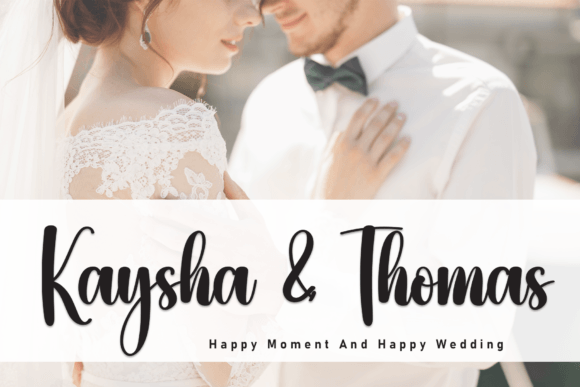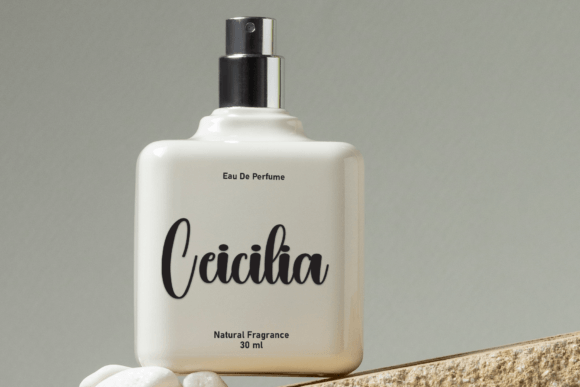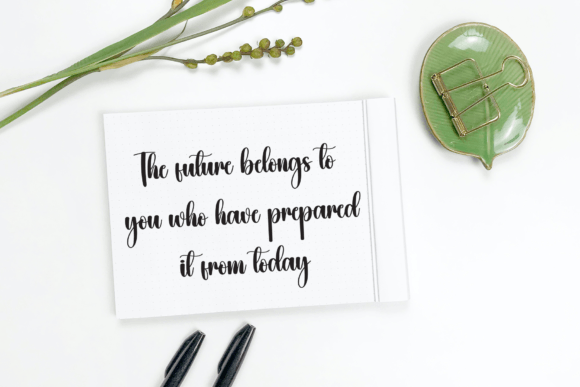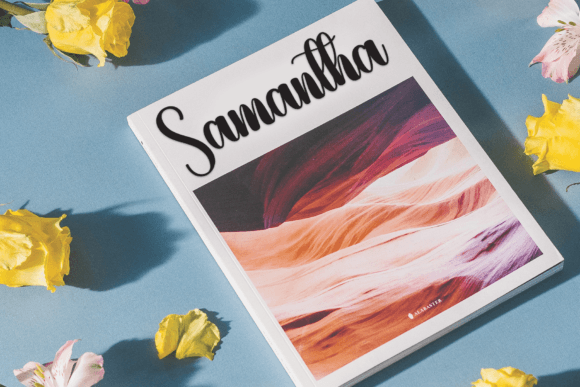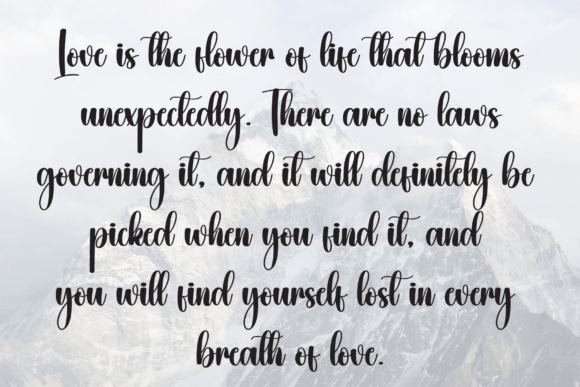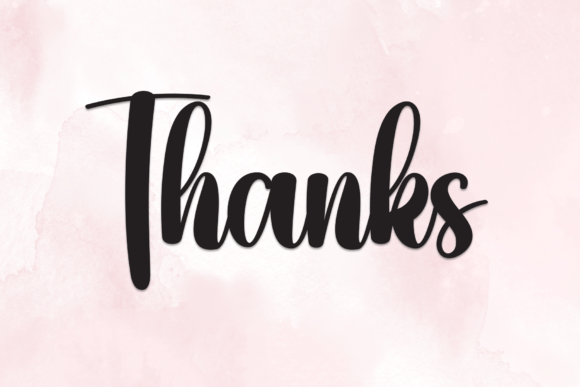
The Blushing Font: A Sweet and Friendly Companion for Your Design Journey
I’ll never forget the time I was working on a project for a client who wanted a font that was both playful and elegant. I had spent hours scouring the internet for the perfect match, but nothing seemed quite right. That was until I stumbled upon the Blushing font. Its sweet and friendly handwritten style instantly captured the essence of what my client was looking for, and I knew I had found the perfect fit.
As a designer, I’m always on the lookout for fonts that can help me bring my projects to life. The Blushing font has quickly become one of my go-tos, and here’s why:
- ✨ Unique and natural style: The Blushing font has a one-of-a-kind look that’s both handmade and refined. It’s perfect for designs that need a personal touch.
- ✅ Versatility: This font can be used for a wide range of projects, from wedding invitations to social media graphics, and even branding materials.
- 💕 Emotional connection: The Blushing font has a way of evoking feelings of warmth and friendliness, making it perfect for designs that need to connect with the audience on an emotional level.
Of course, no font is perfect, and there are a few quirks to be aware of:
- 🤔 Limited character set: While the Blushing font has a wide range of characters, it’s not a full Unicode font. This means you might run into issues if you need to use non-English characters.
- ⚠️ Not suitable for body text: Due to its handwritten nature, the Blushing font is best used for headlines, titles, and short paragraphs. It might not be the best choice for longer blocks of text.
The Story Behind the Blushing Font
The Blushing font was designed by a talented typographer who wanted to create a font that was both sweet and elegant. Inspired by traditional handwritten scripts, the Blushing font was crafted to evoke feelings of warmth and friendliness. With its unique and natural style, it’s no wonder this font has become a favorite among designers and crafters.
| What is the Blushing font best used for? | The Blushing font is perfect for designs that need a sweet and friendly touch, such as wedding invitations, social media graphics, and branding materials. |
| Is the Blushing font suitable for body text? | No, the Blushing font is best used for headlines, titles, and short paragraphs. It’s not recommended for longer blocks of text. |